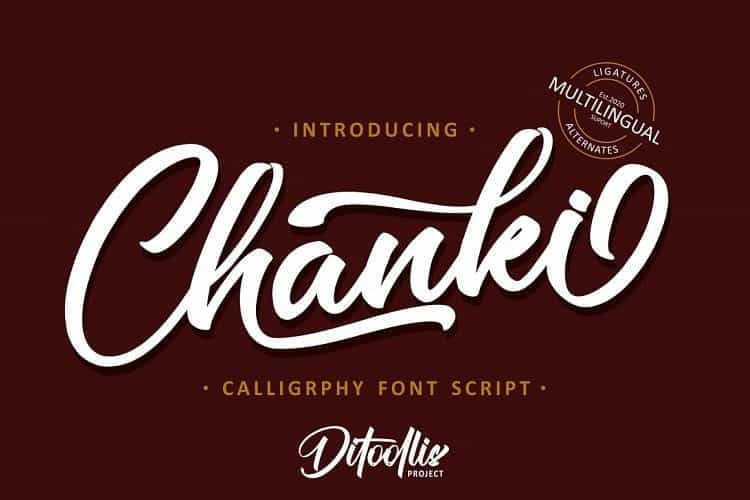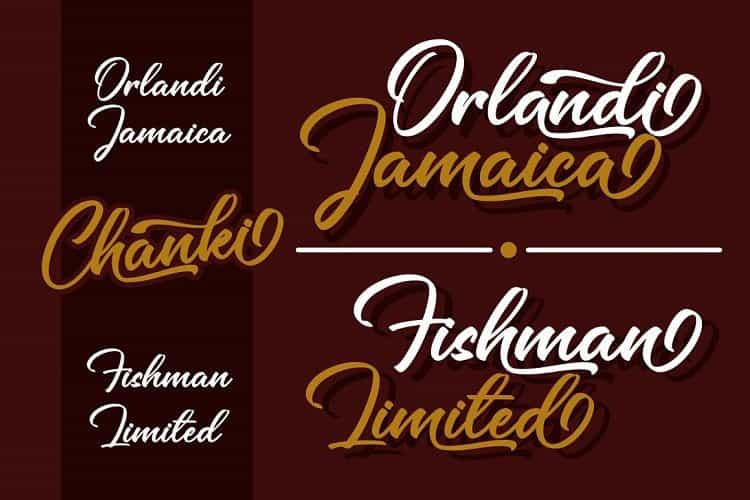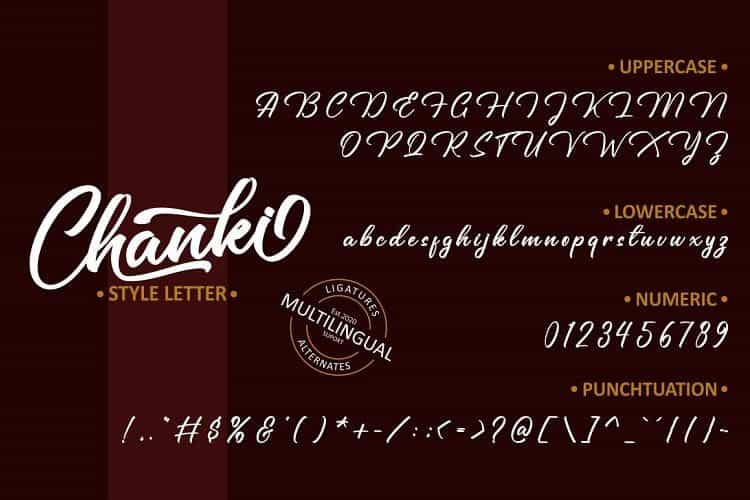
Chanki is a solid and brave script font. The typeface was carefully designed by hand lettering. which has a lot of style alternatives and swashes that will assist you in the creation of your own design. This font is one of a kind and just perfect for branding (Logotype) and other design needs, like quotes, merchandise, packaging, business card and many other projects.